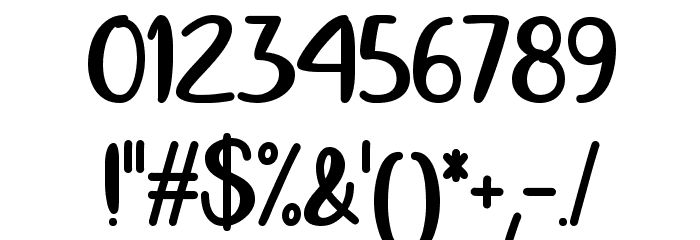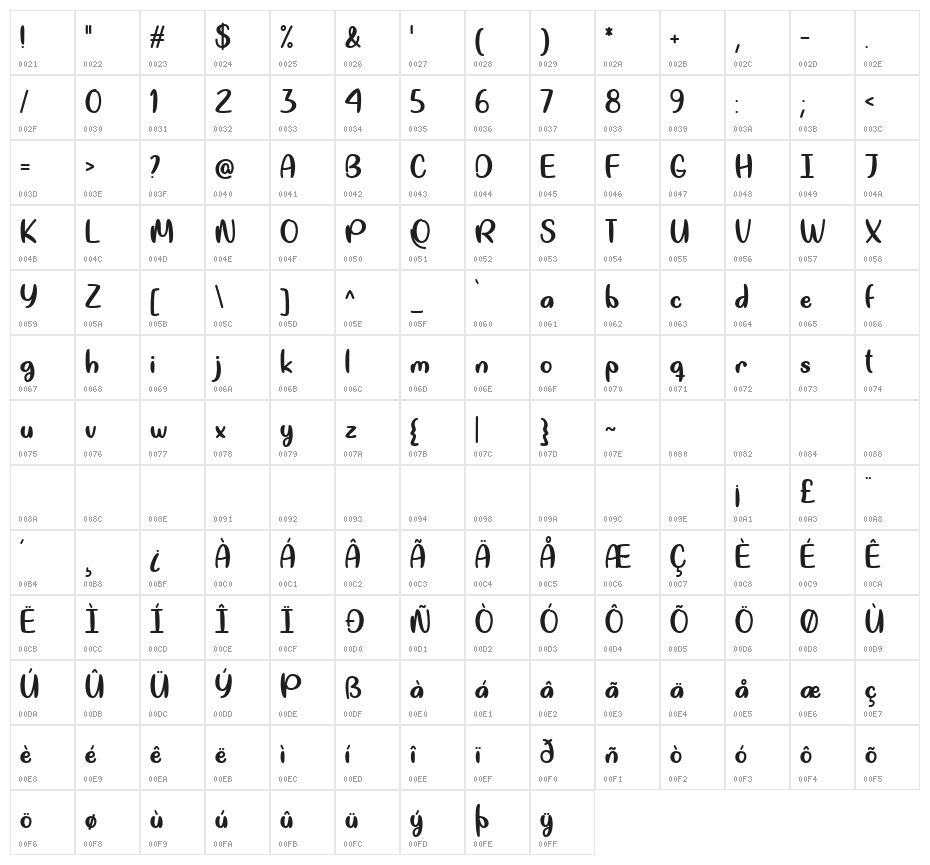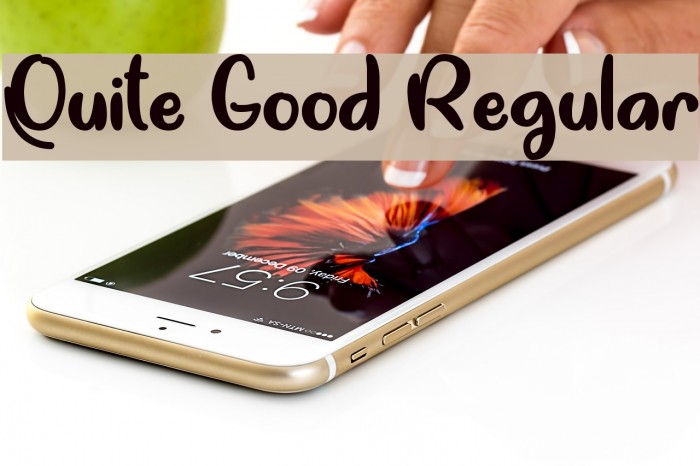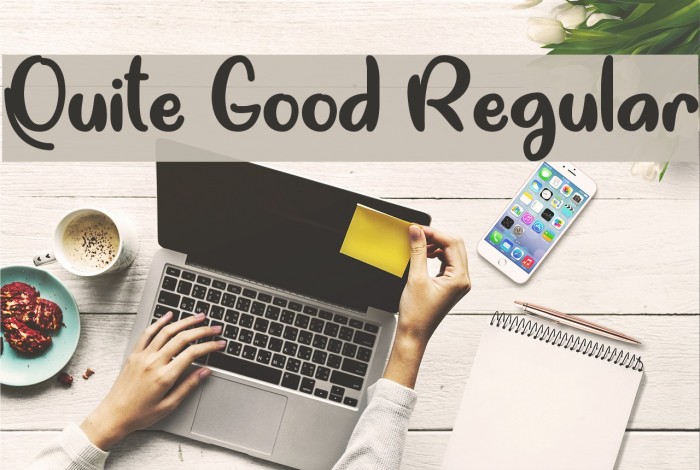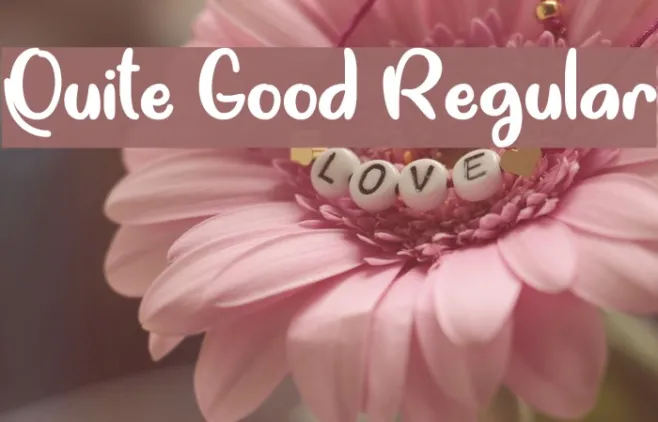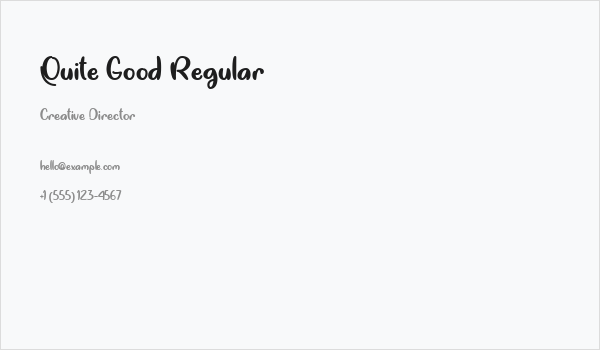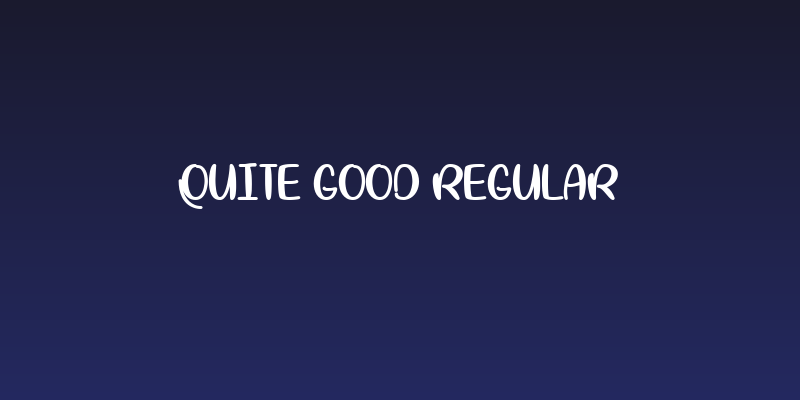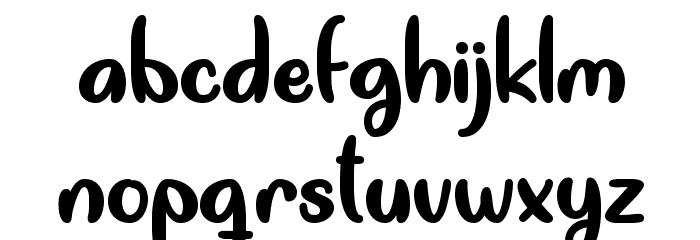
Quite Good Regular Font
Quite Good Regular Description
This playful and rounded font features a handwritten style that exudes a casual and friendly vibe. The characters are bold with a consistent stroke width, giving it a uniform appearance. The uppercase letters are slightly taller than the lowercase, adding a touch of whimsy. The numbers and special characters maintain the same playful aesthetic, making the font versatile for various uses. The overall design is approachable and modern, suitable for projects that require a personal touch.
| Overall Style | Playful, Modern |